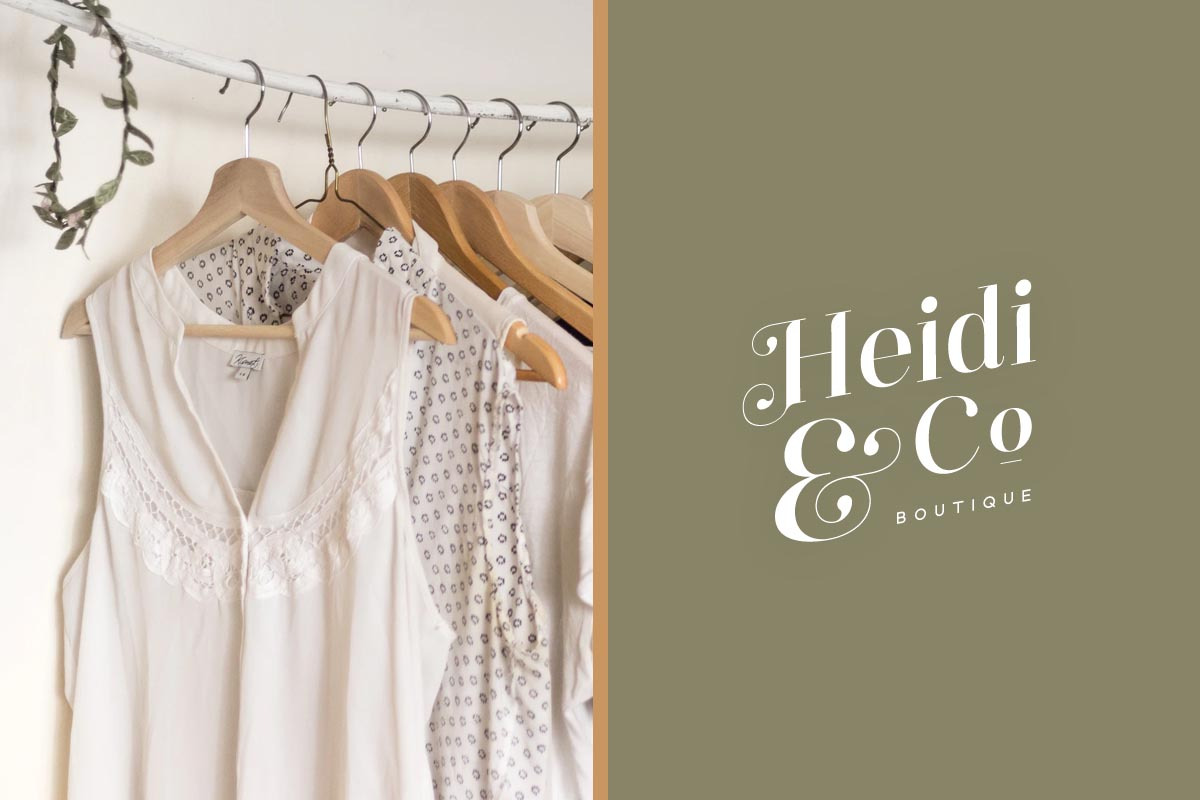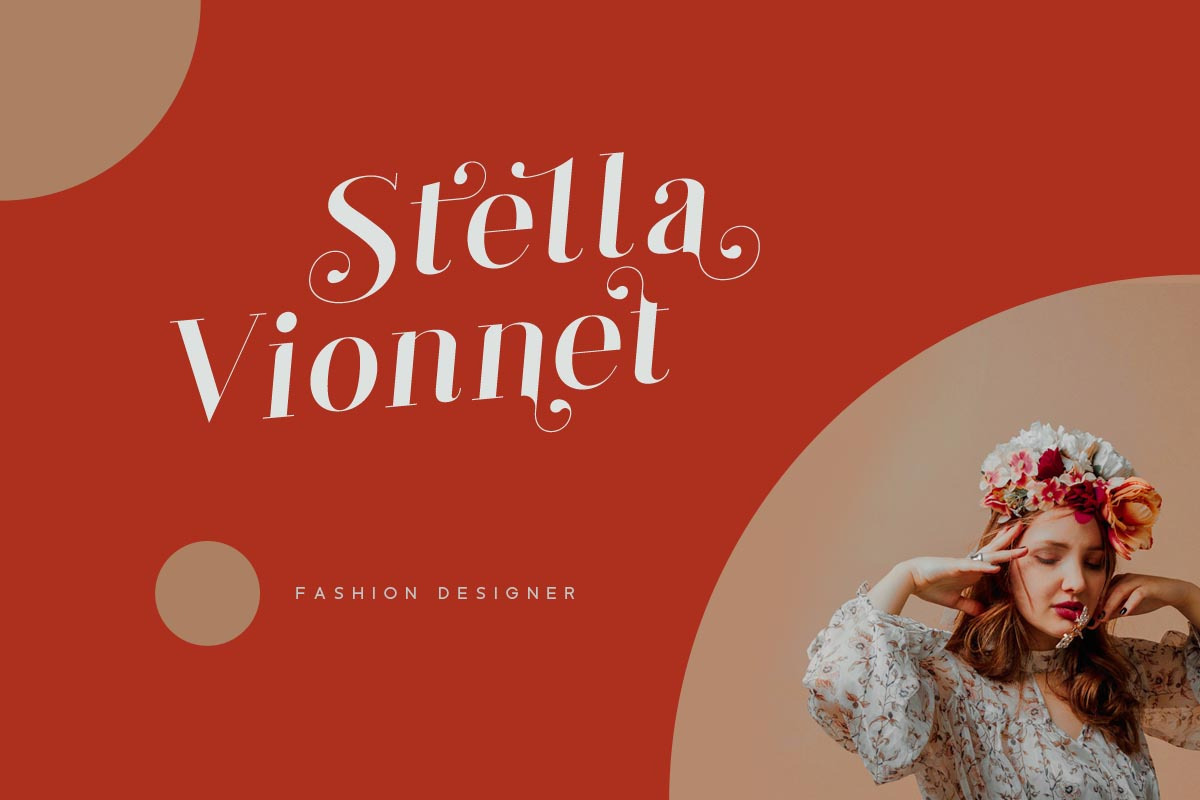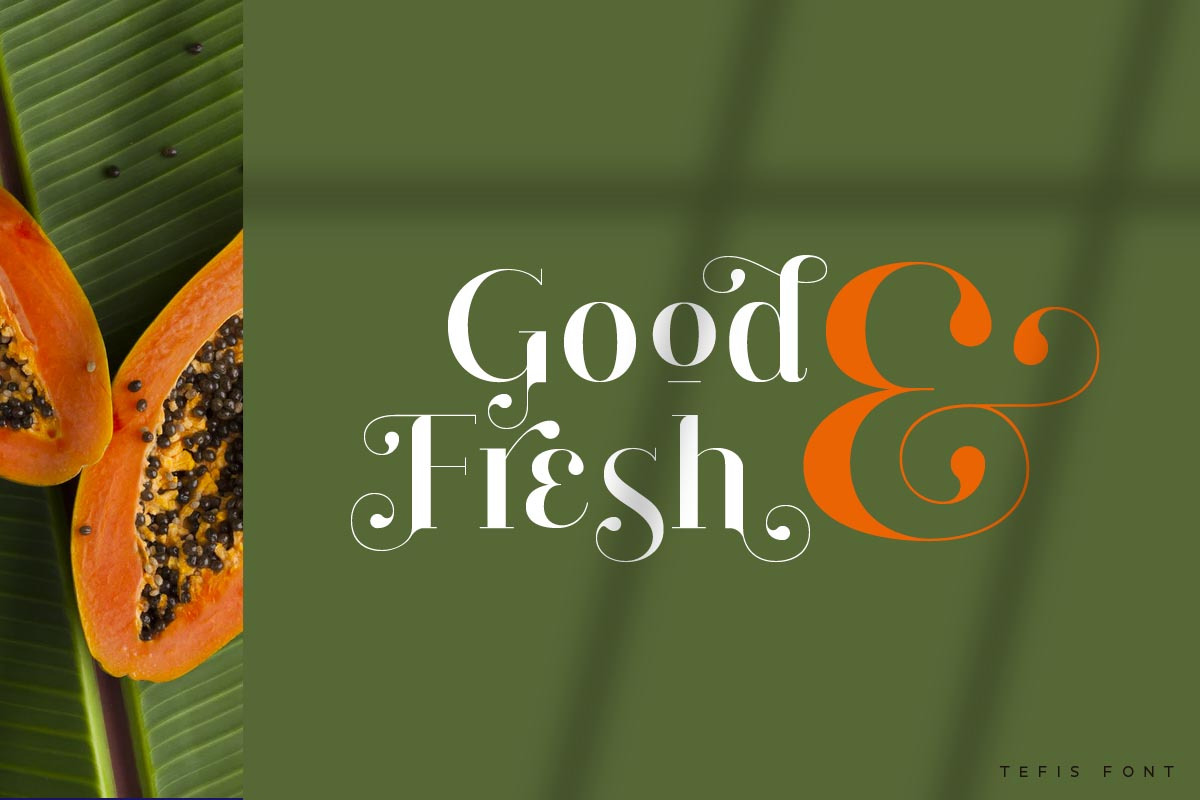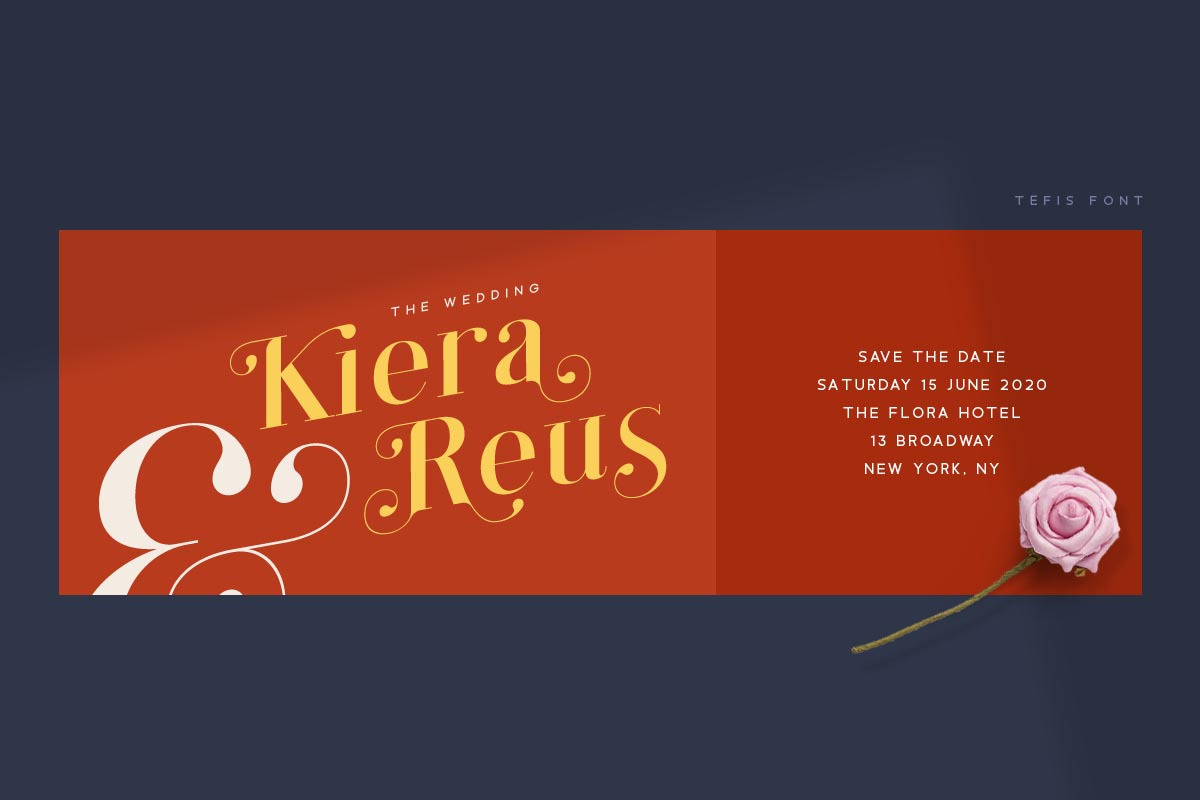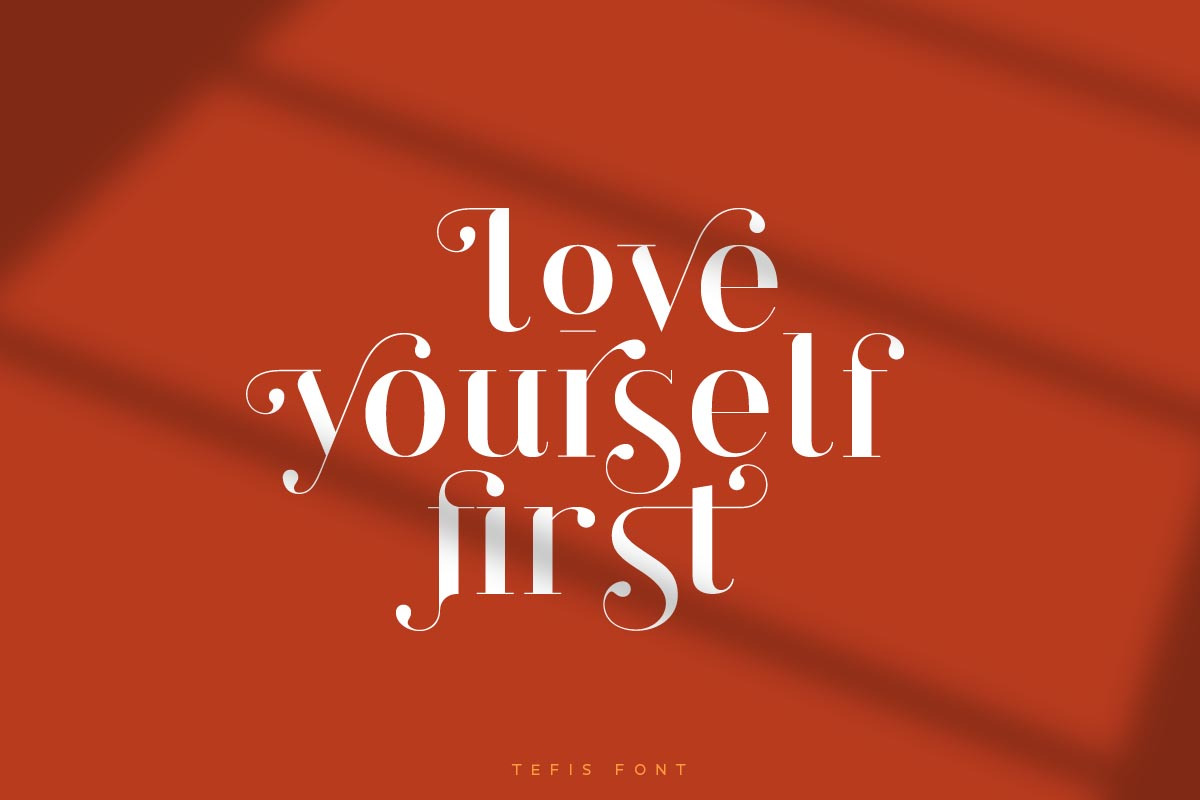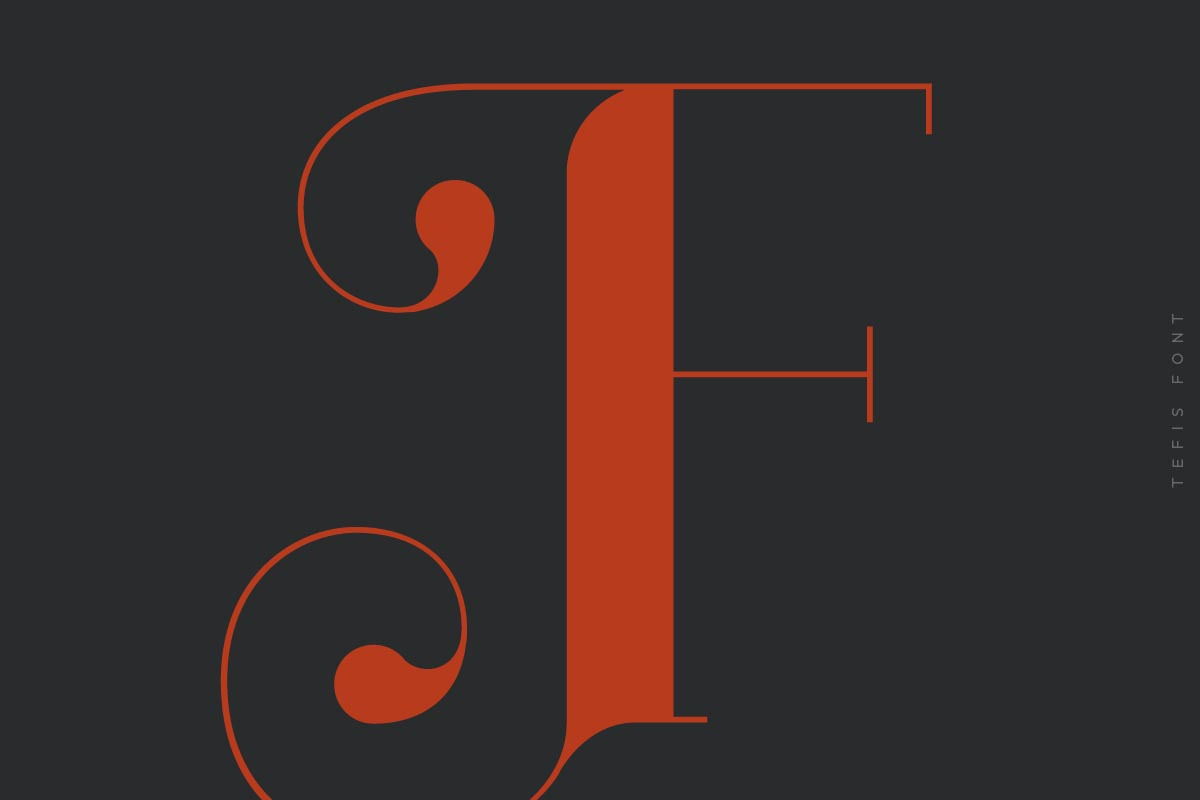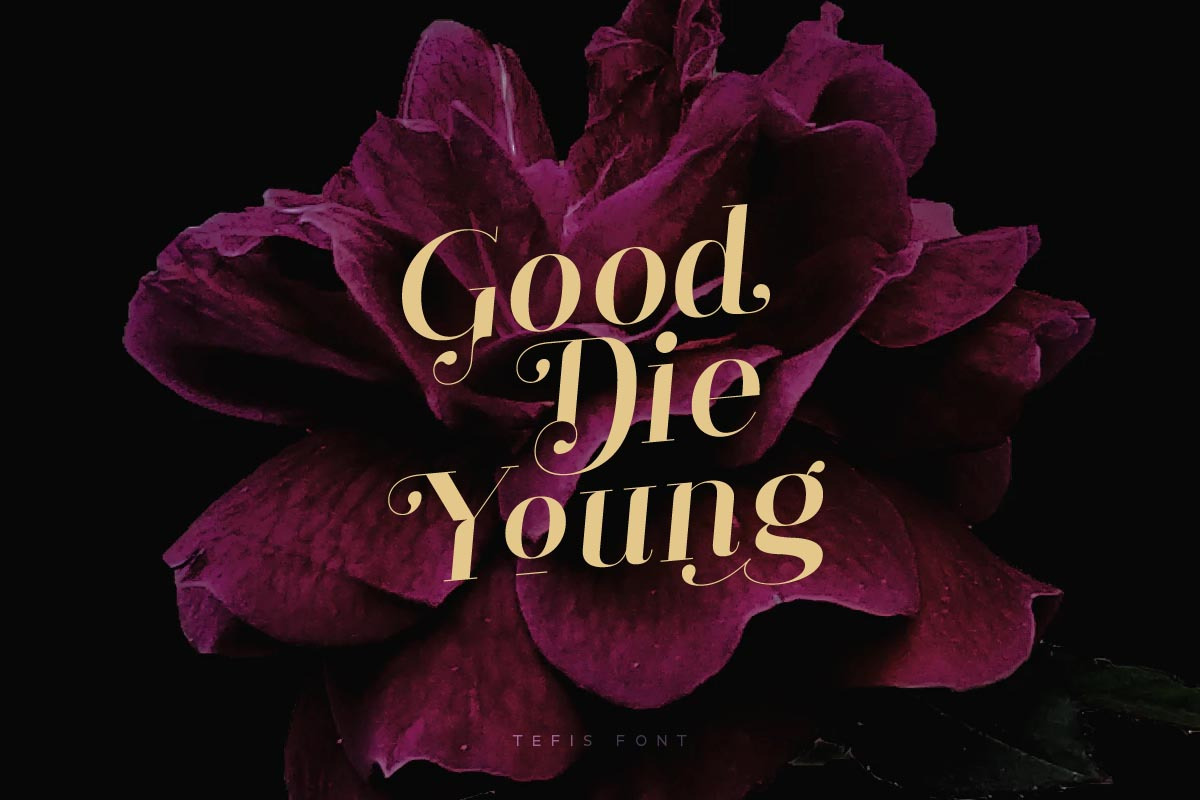
Introducing Tefis Font Family!
Tefis is modern serif font family, every single letters have been carefully crafted to make your text looks beautiful.